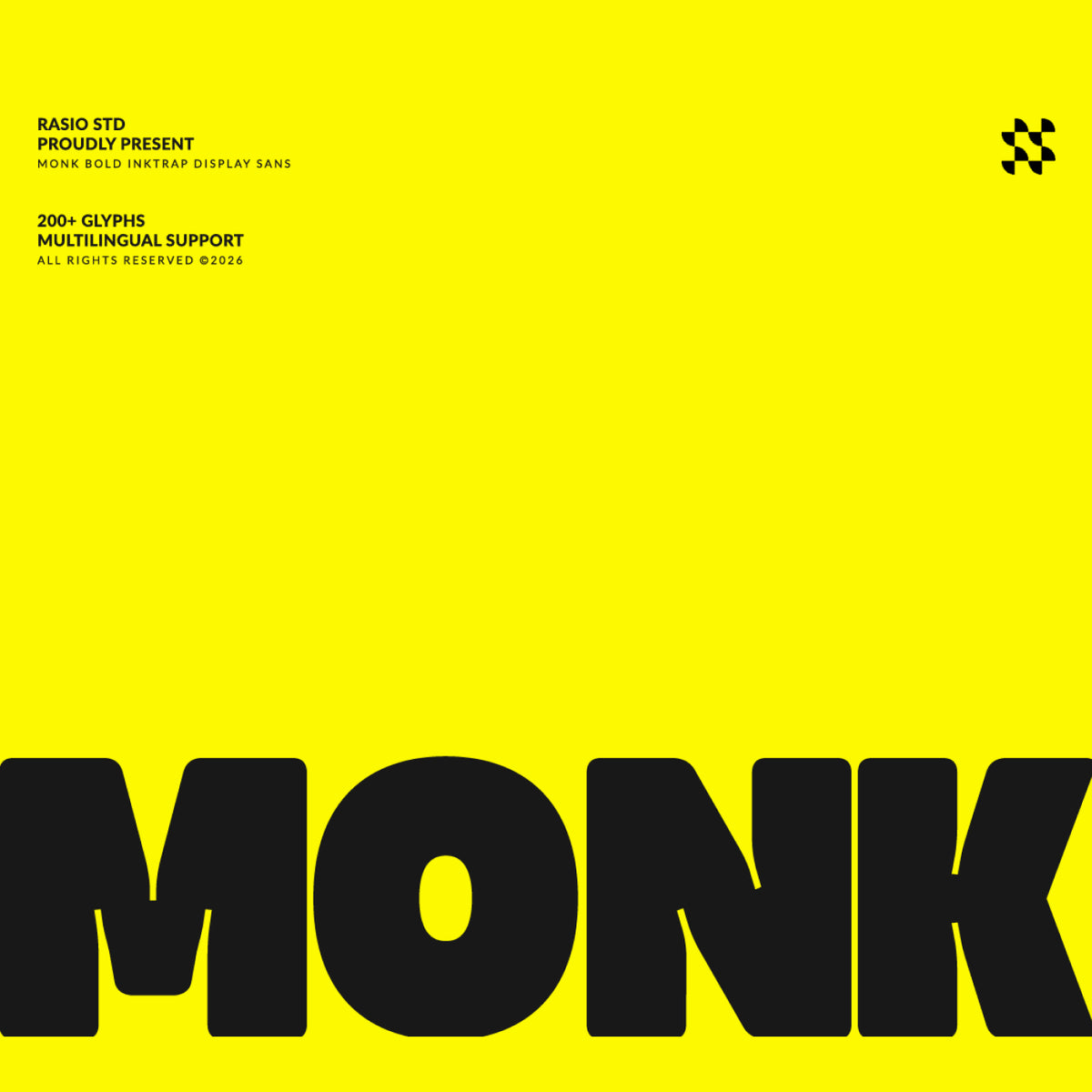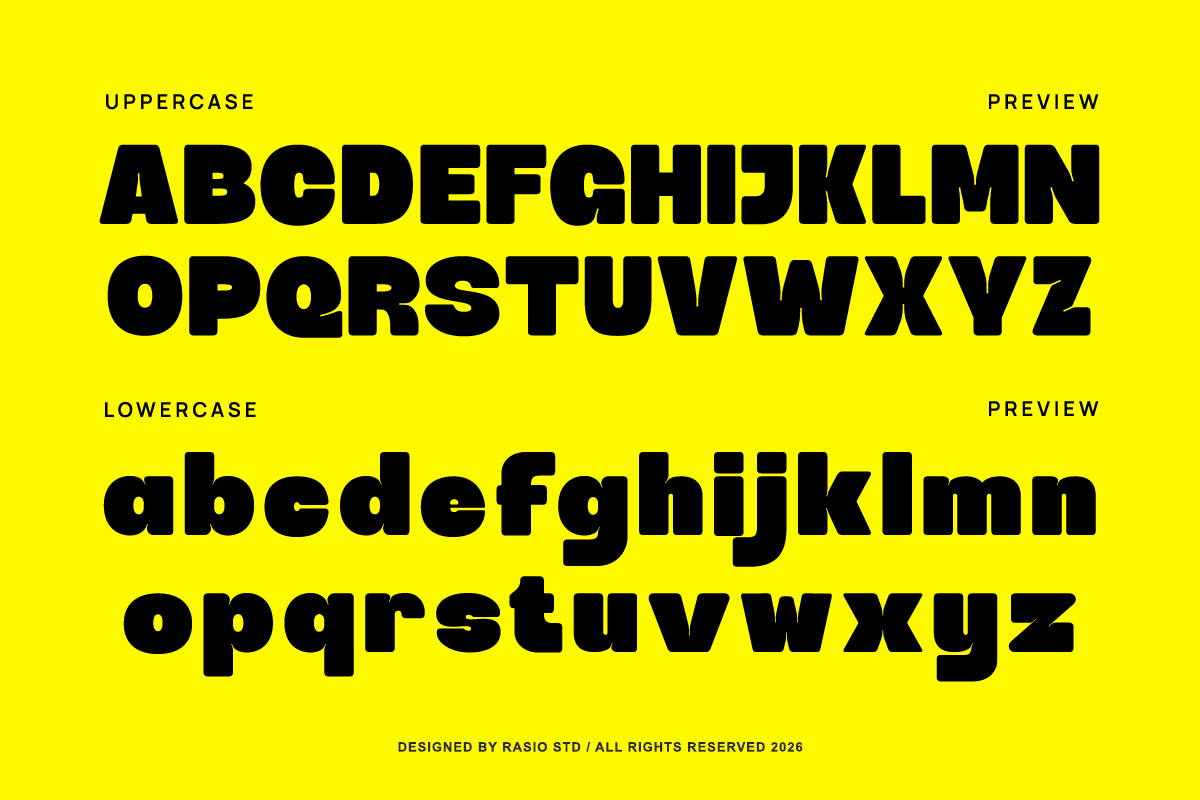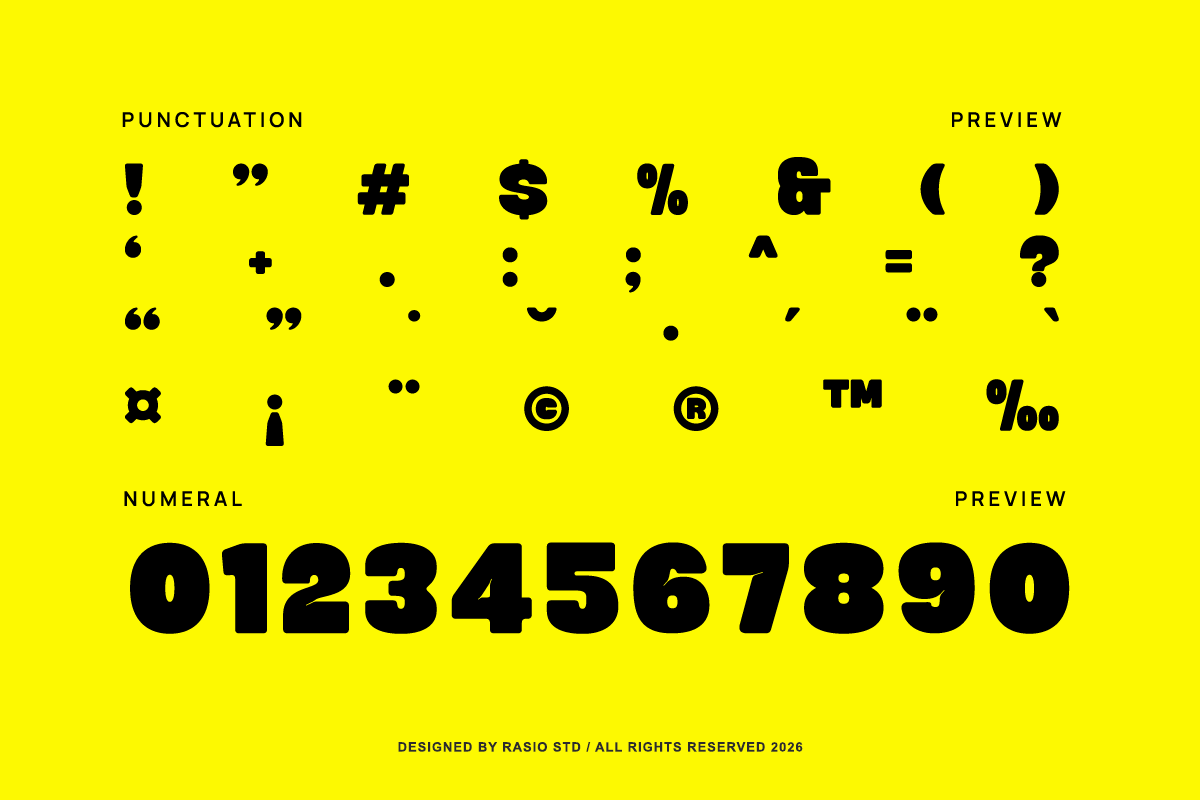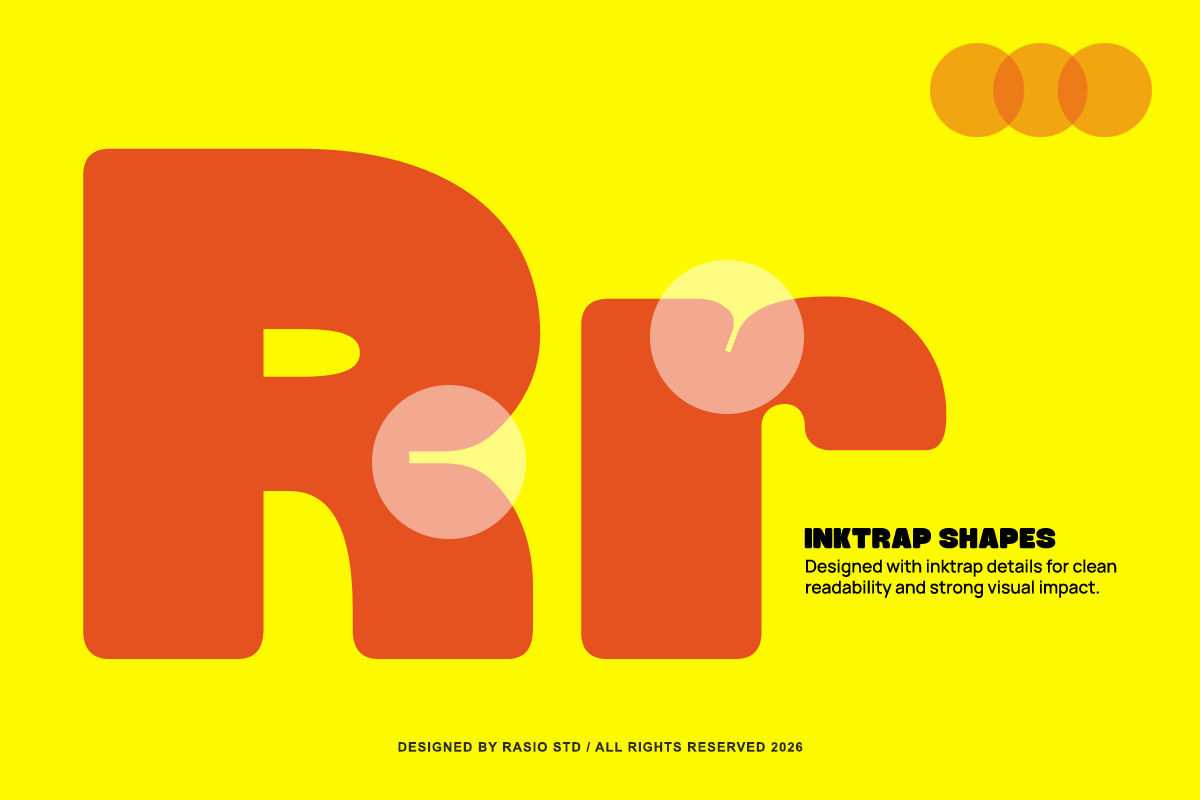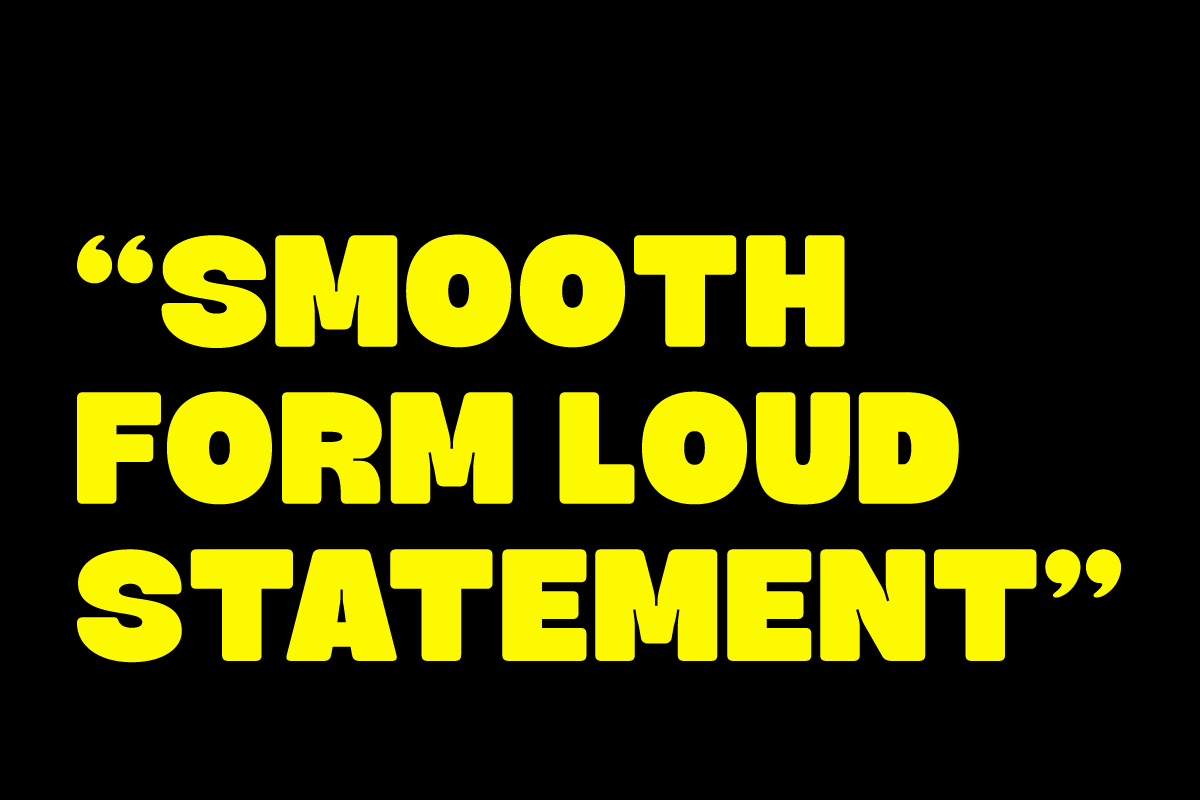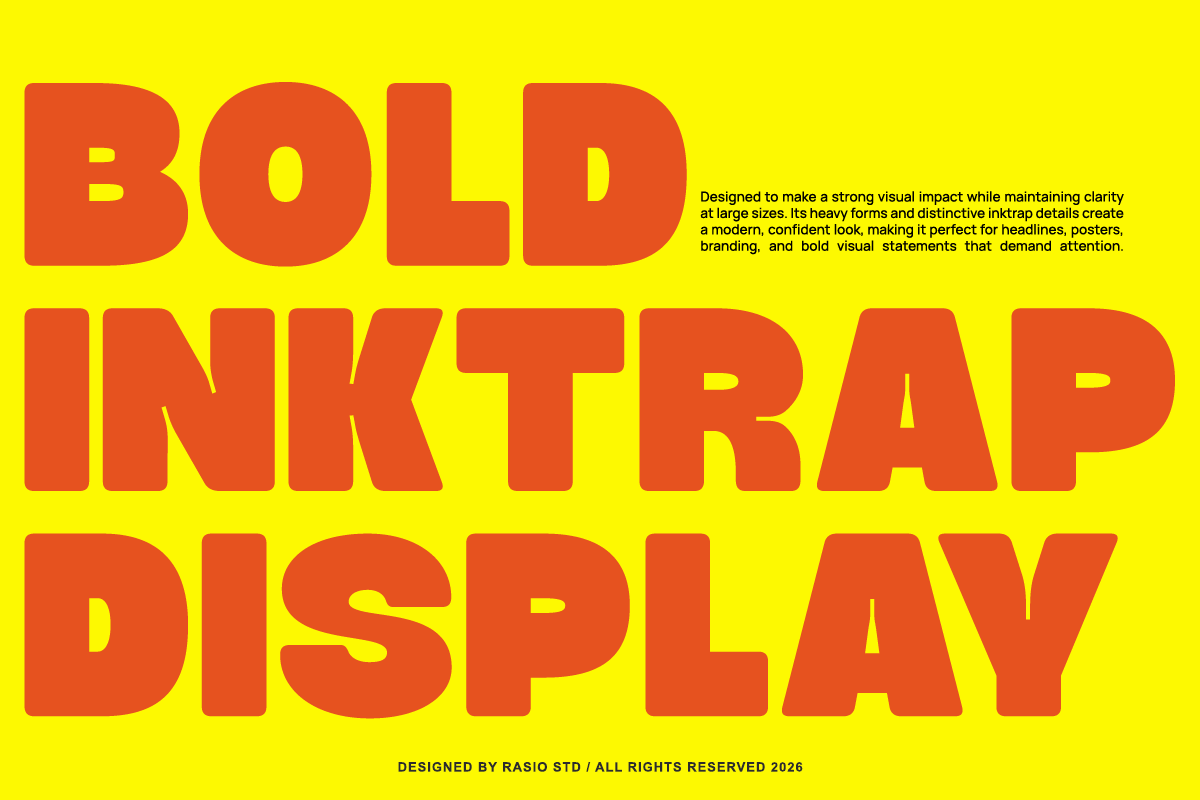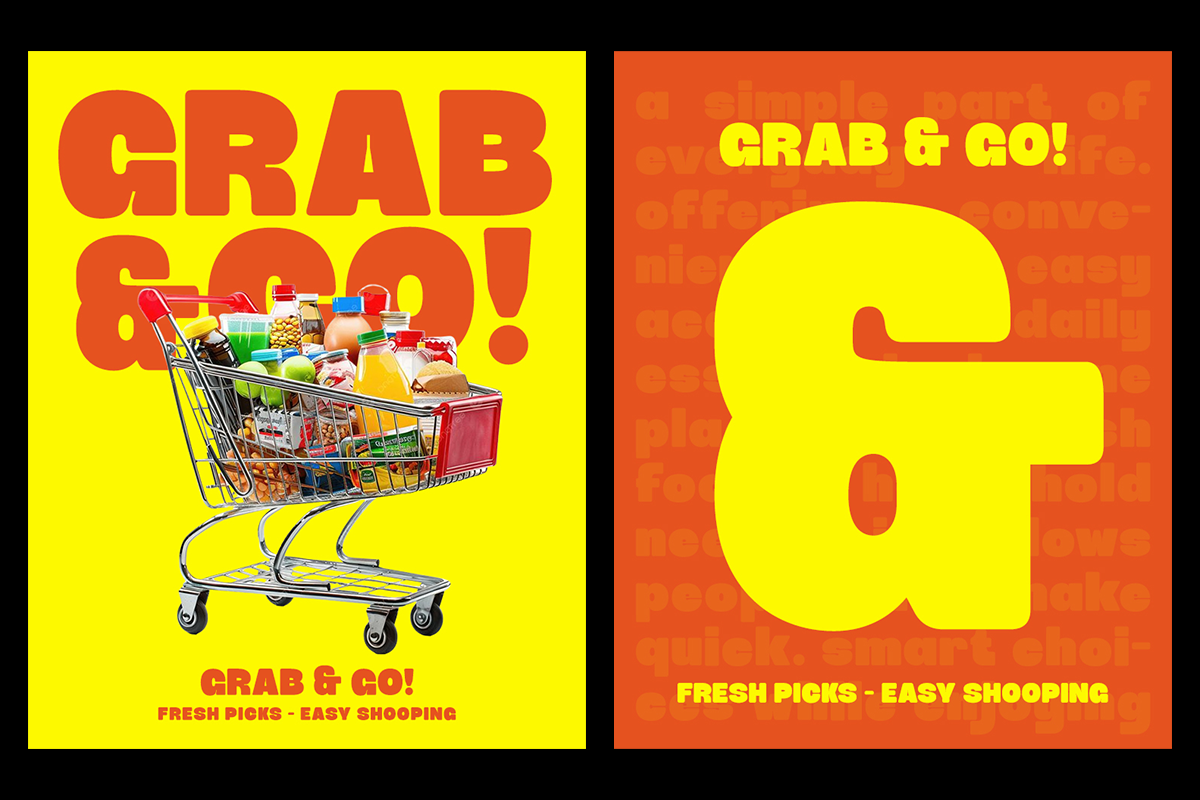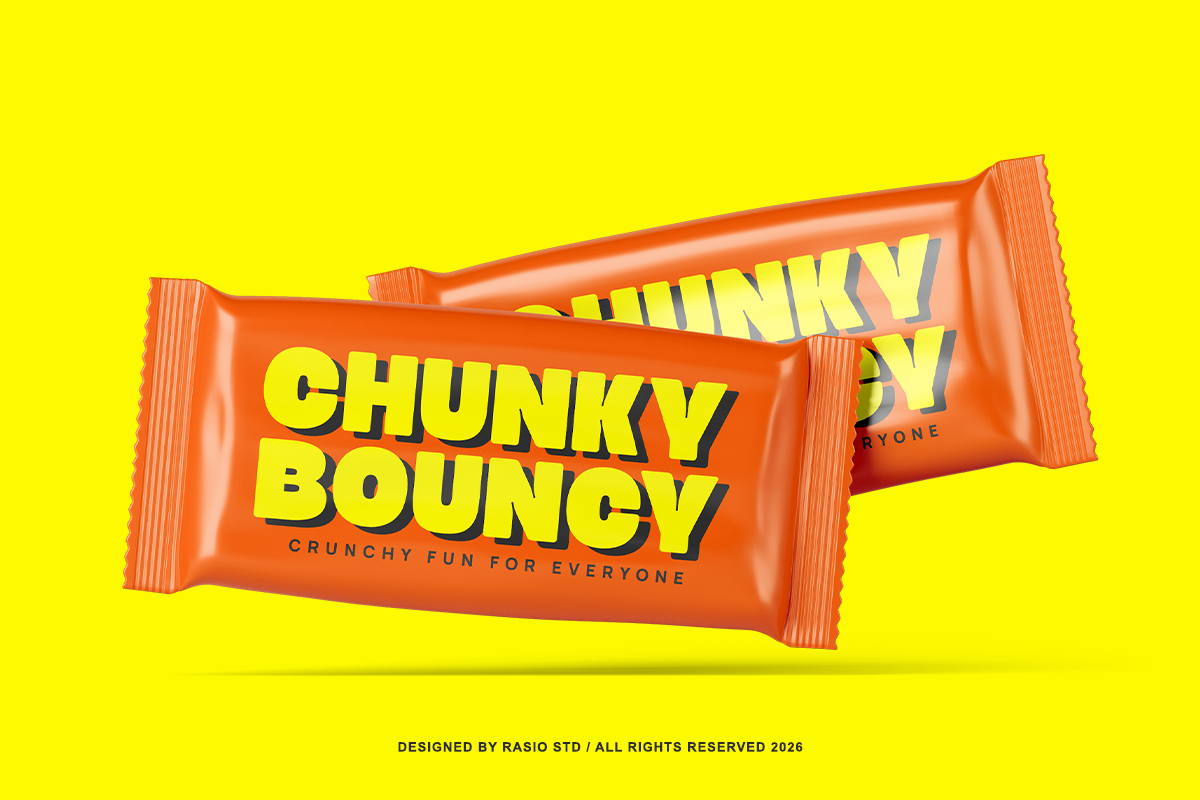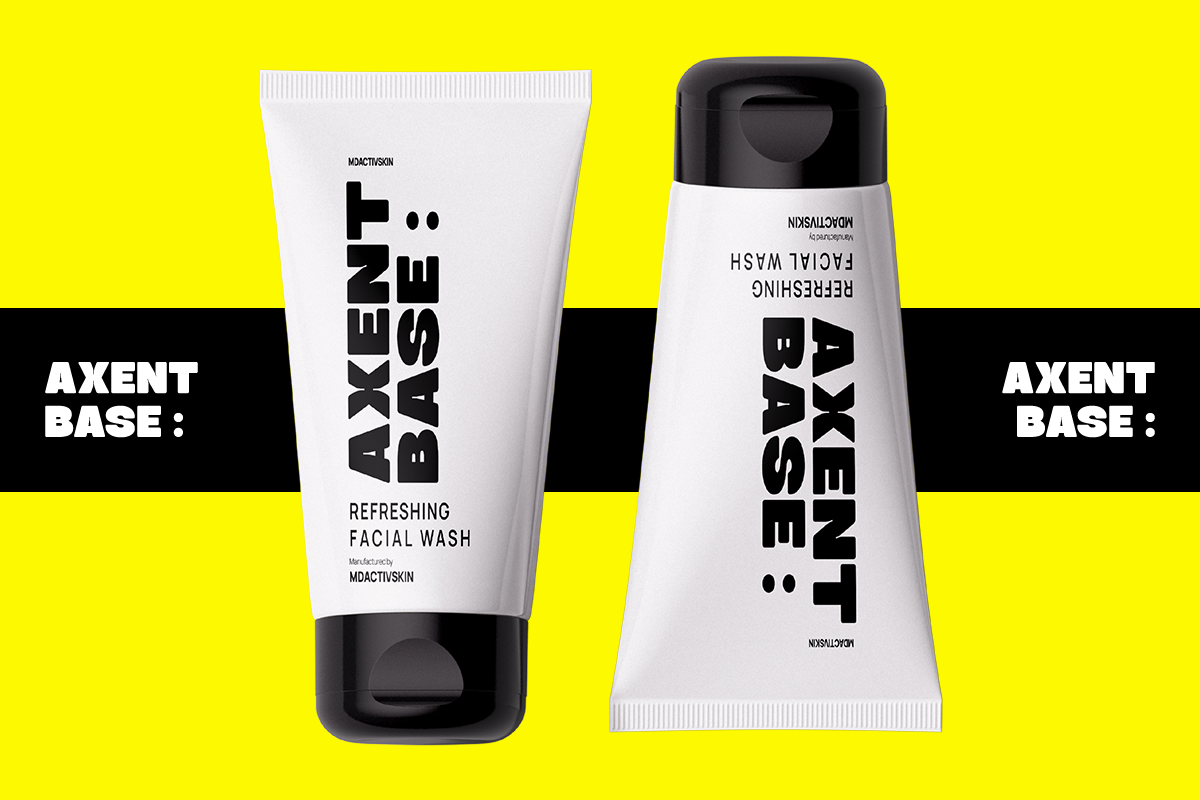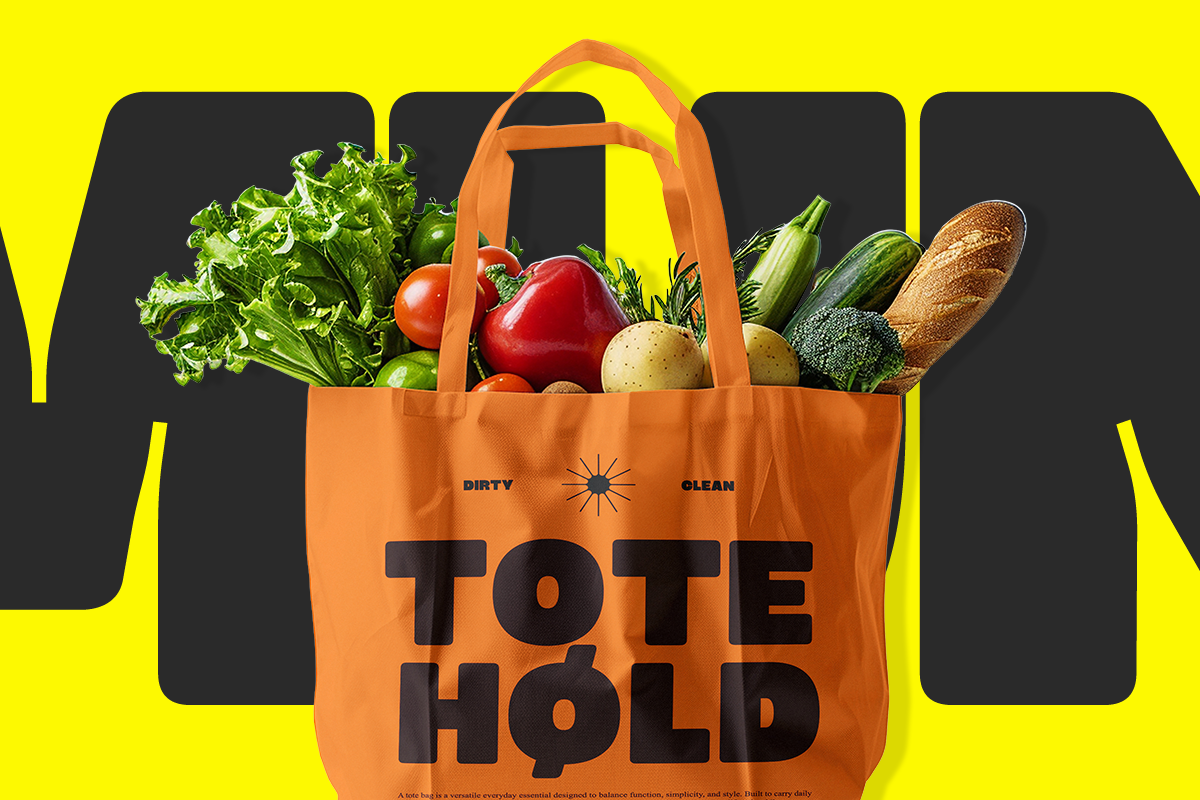
Monk Bold Inktrap Display Sans Font
Monk is a bold inktrap display sans font built with heavy strokes, rounded shapes, and distinctive inktrap details. The design combines playful proportions with strong geometry, creating a loud and confident typographic personality. It features uppercase, lowercase, numerals, punctuation, and multilingual support. Monk is designed specifically for display use and is not intended for long body text or small-size readability.
Relevance and Use Cases is perfect for bold branding systems, posters, headline layouts, social media graphics, packaging designs, and visual campaigns that require strong attention and playful energy. It works especially well for creative brands, youth-oriented projects, event promotions, and graphic compositions where typography becomes the main visual focus.
Monk is a bold inktrap display sans font featuring heavy strokes, rounded shapes, and inktrap details, with uppercase, lowercase, numerals, punctuation, and multilingual support. It is provided in OTF, TTF, and WOFF formats and is designed for display use rather than long body text.